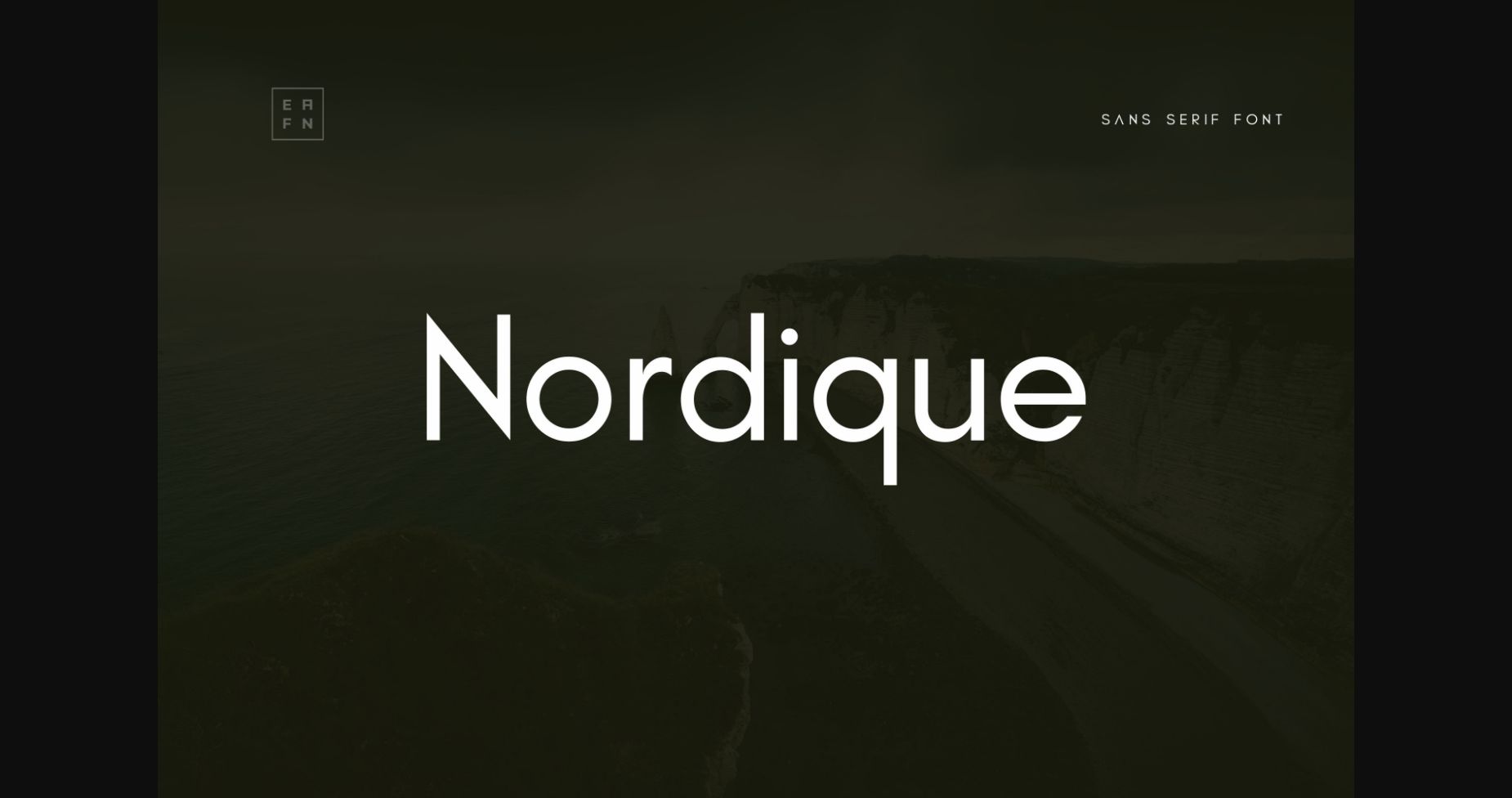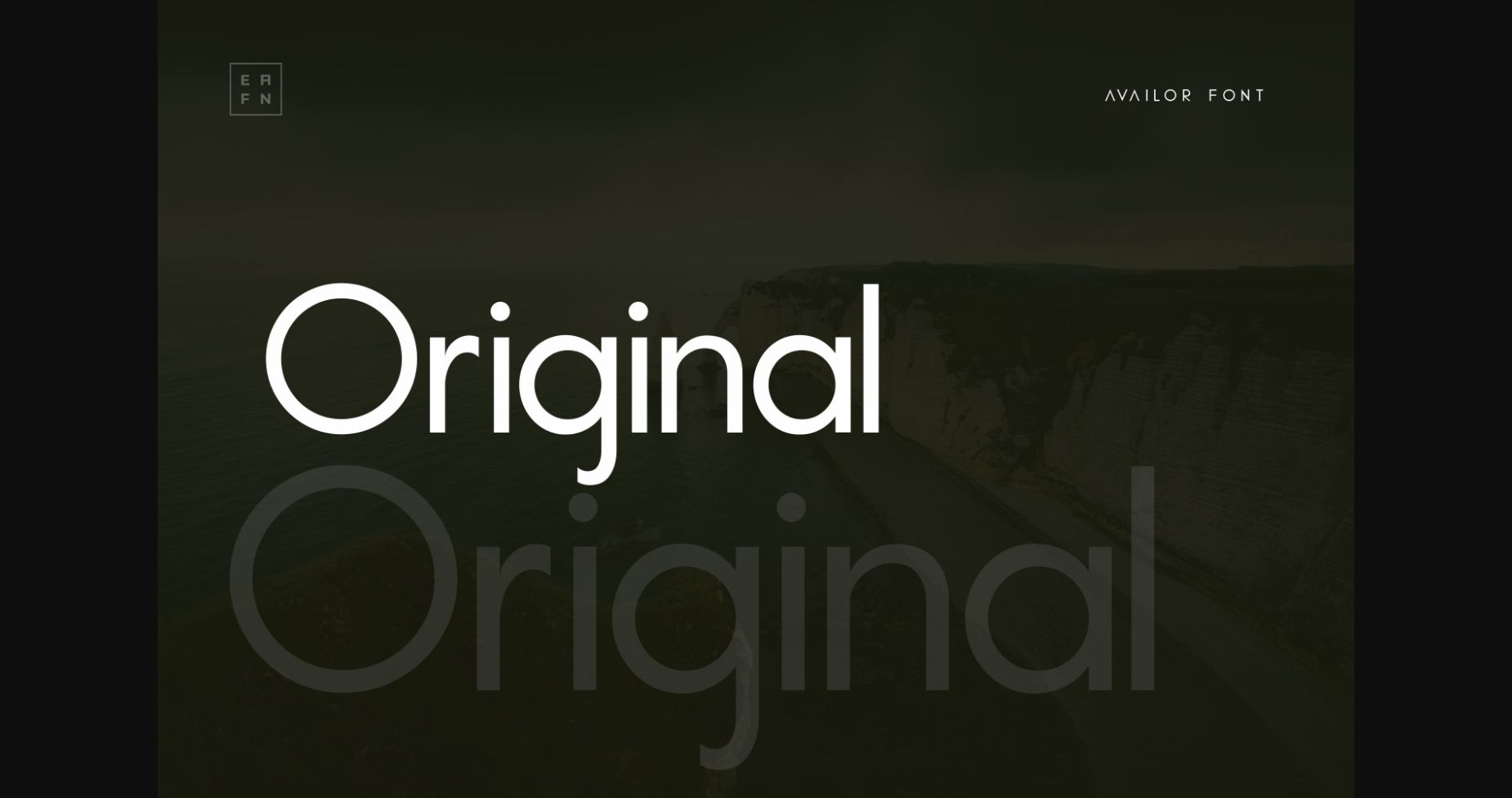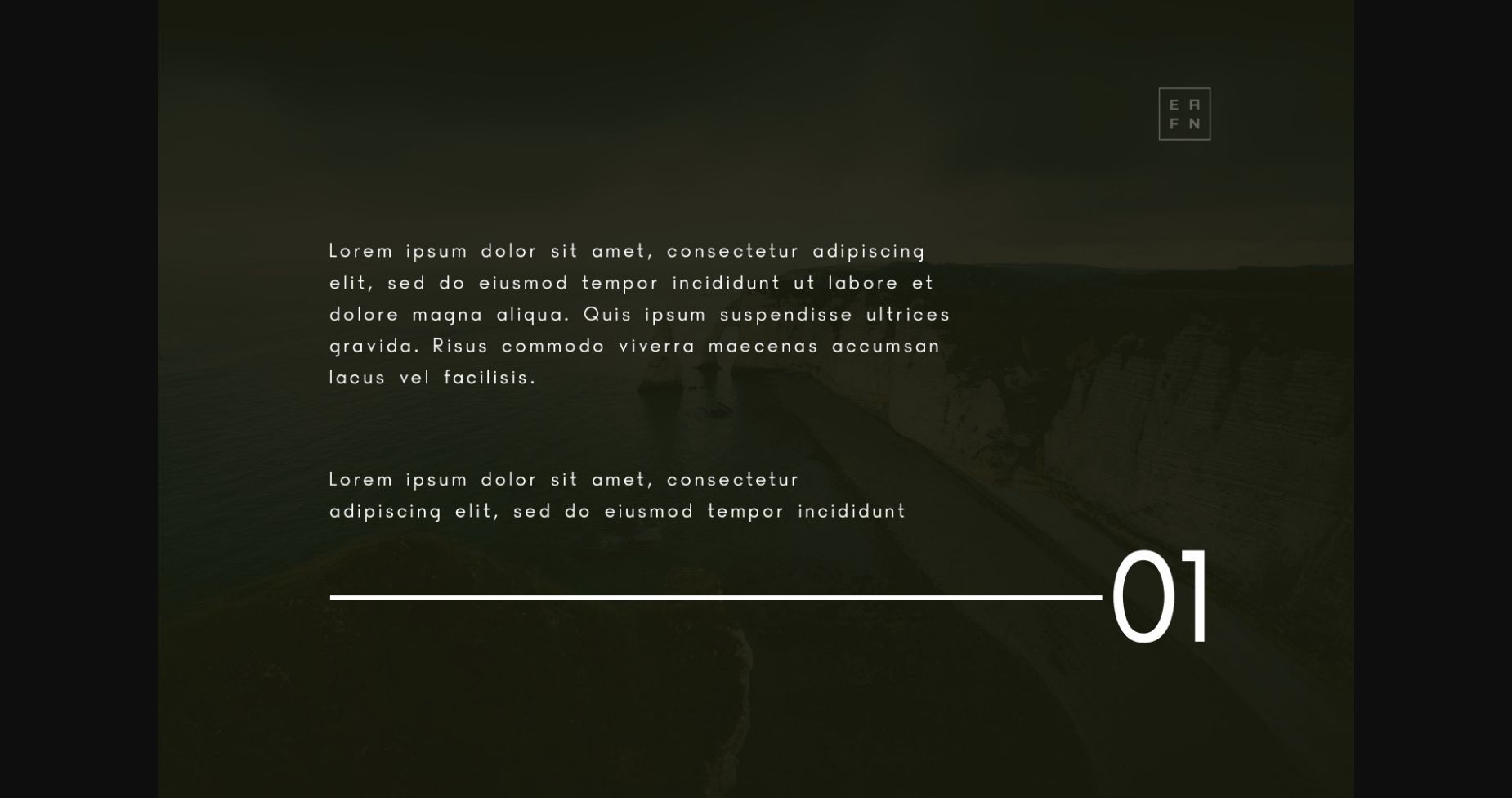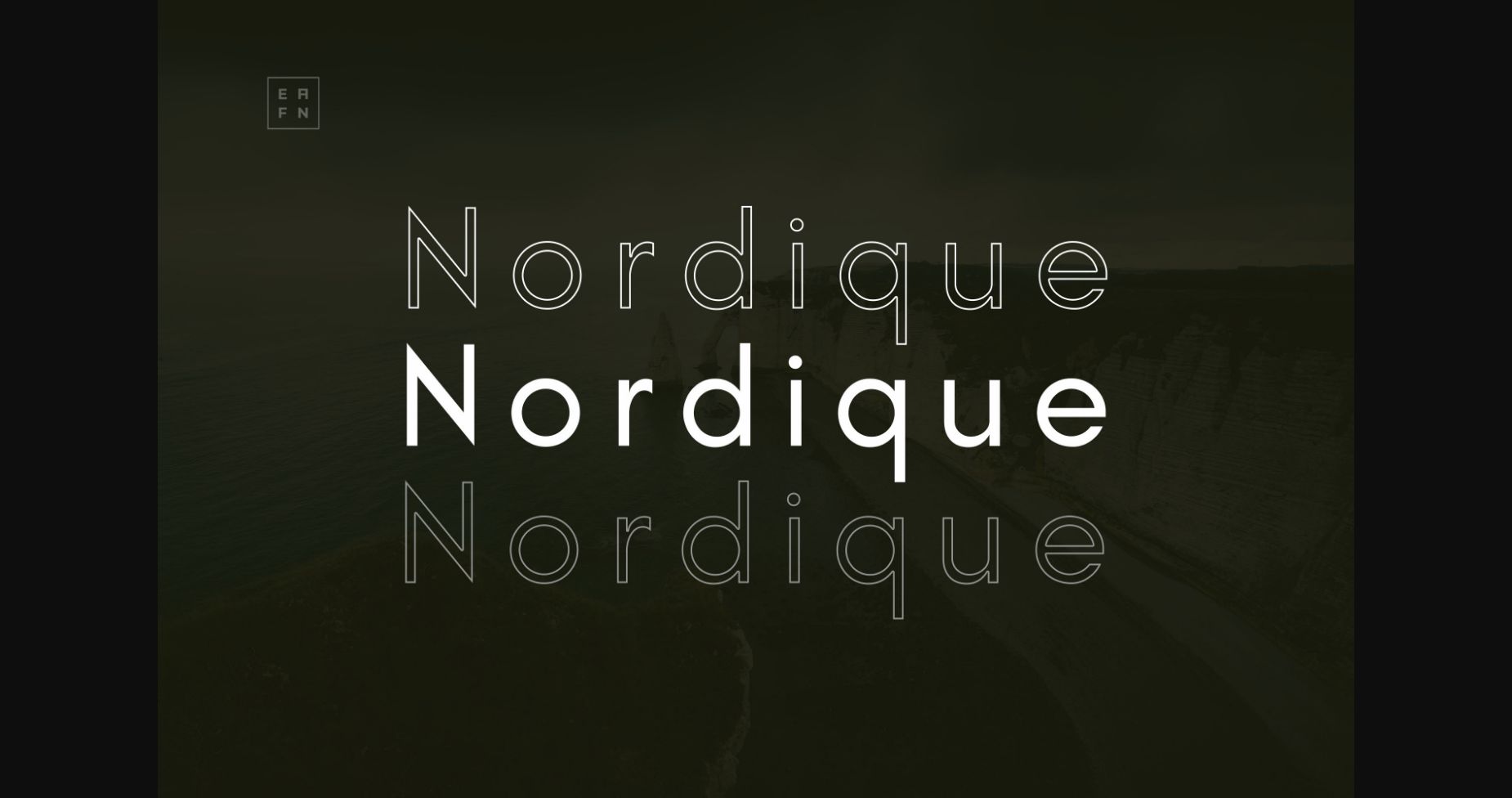
HomeSans Serif FontsNordique Font Sans Serif Fonts Nordique Font FacebookXPinterestWhatsApp 1 of 6 ... Nordique Font Poster 2... Nordique Font Poster 3... Nordique Font Poster 4... Nordique Font Poster 5... Nordique Font Poster 6... About Nordique Font Nordique is a minimal and neat sans serif font. It can easily be matched to an incredibly large set of projects, so add it to your creative ideas and notice how it makes them stand out! DOWNLOAD NOW People also explored Vanilla Wafers Font Holliday Font Angela Script Font Mystical Woods Font Marshland Script Font Cherry Caramel Font Briella Font Mymountain Font Alexatie Font 286 0 TagsNordique Font Previous articleBlante Panama FontNext articleQuinter Font LEAVE A REPLY Cancel reply Comment: Please enter your comment! Name:* Please enter your name here Email:* You have entered an incorrect email address! Please enter your email address here Website: Save my name, email, and website in this browser for the next time I comment. Personal Use Free Castina Personal Use Free Read more about this font The Bocah Personal Use Free Read more about this font Good Timing – Bold Personal Use Free Read more about this font Electroharmonix Personal Use Free Read more about this font BLOG Free Fonts Risk: Why Free Fonts Can Be Dangerous for Designers Free Fonts Risk: Why Free Fonts Can Be Dangerous for Designers Using free fonts is a common practice in web and graphic design. However, the... Elegant Wedding Invitation Fonts – Handwritten & Script Fonts Exploring Font Trends Free vs Paid Fonts: Why Investing in Premium Fonts Is Worth It